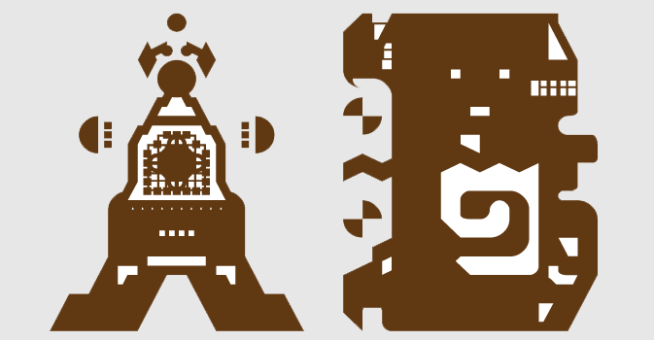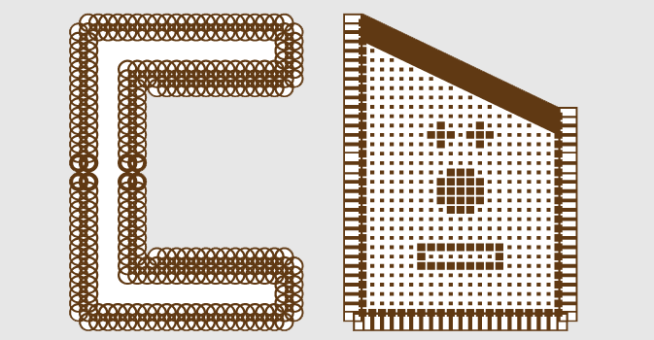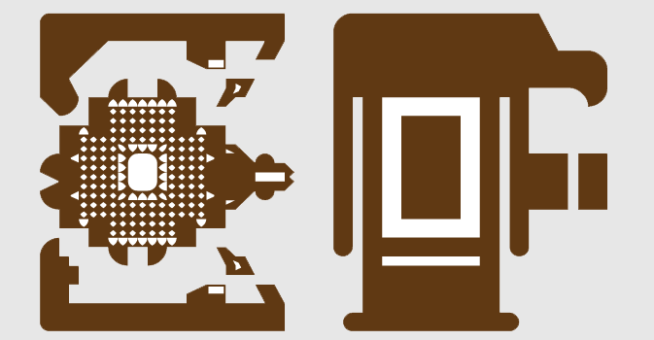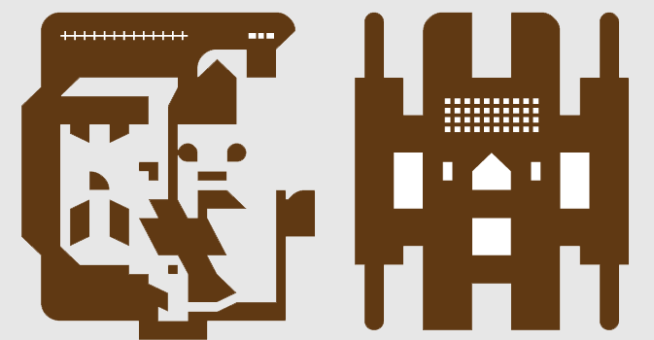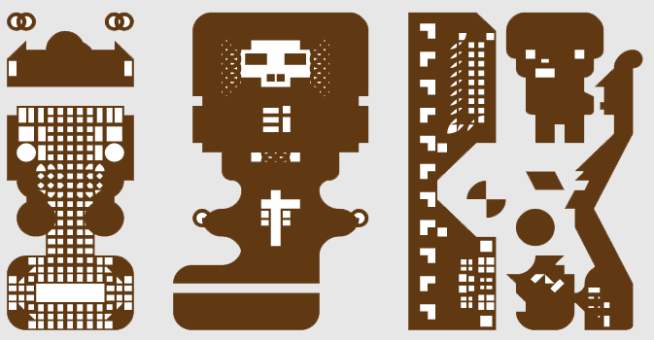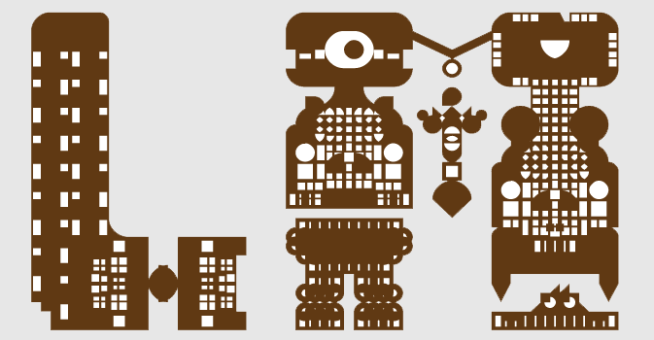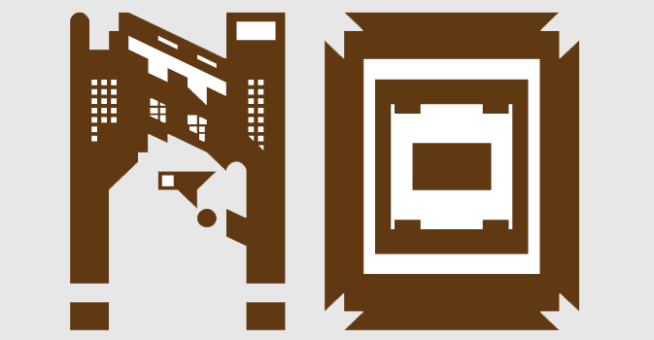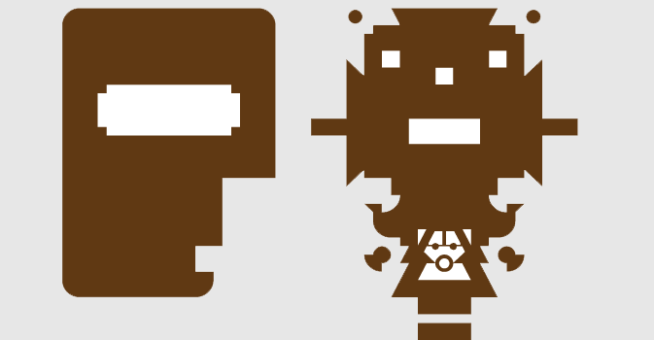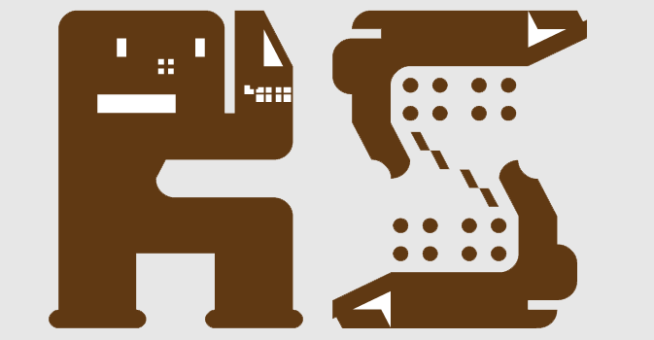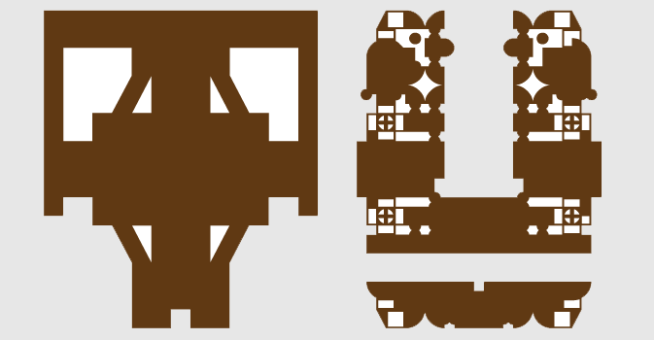
trAUMa 111 / Pictorial Abuse
"Pictorial Abuse", like all the "trAUMa" series, works at the frontier between Art & Type Design, Figuration & Abstraction, each font is a comprehensive world in which every glyph is a "living" entity. But put together they can produce your messages in the most accurate way.